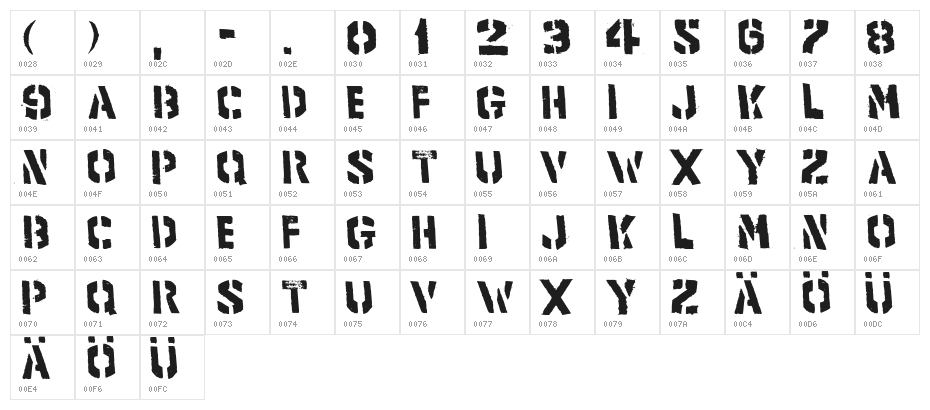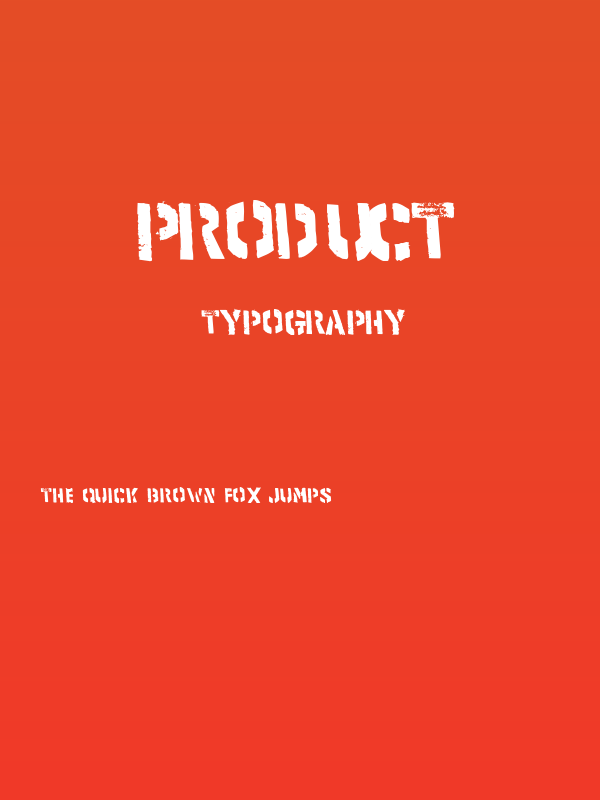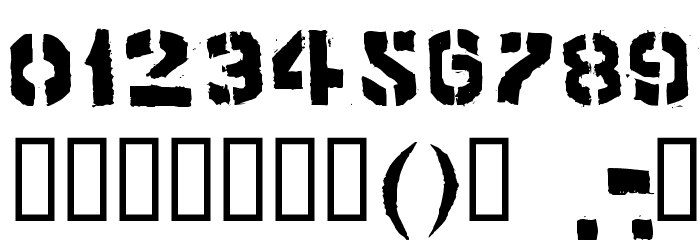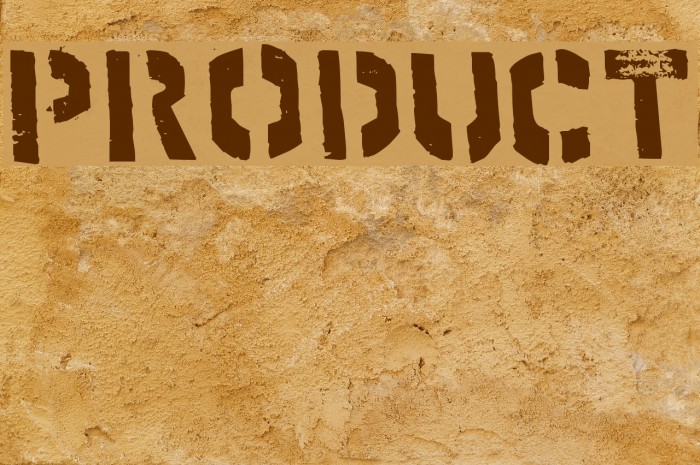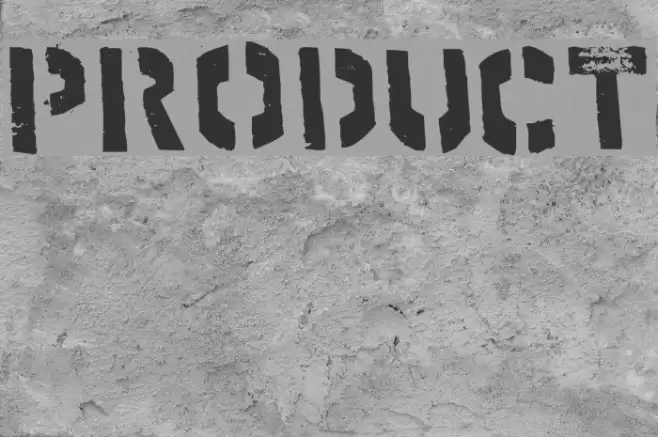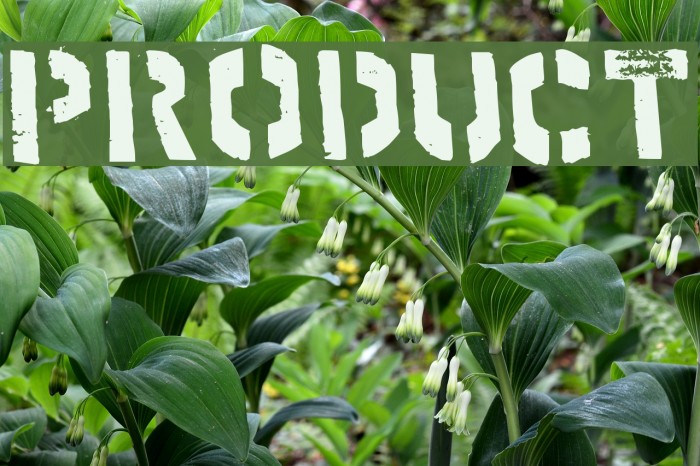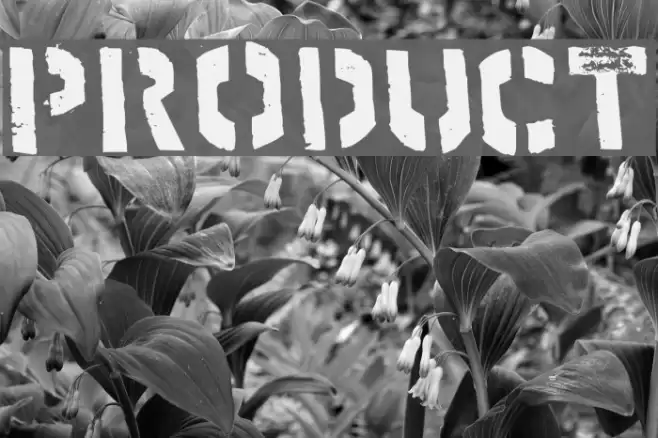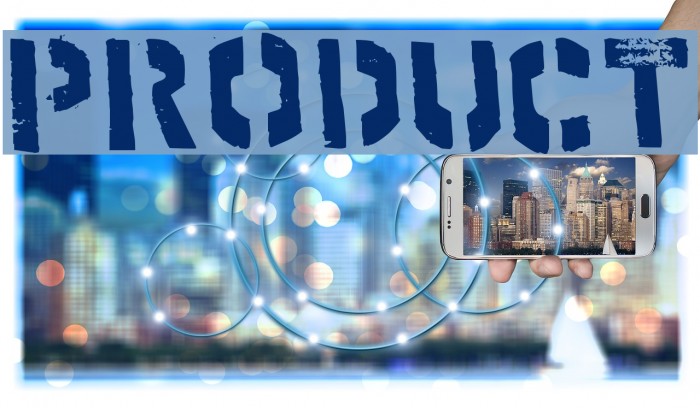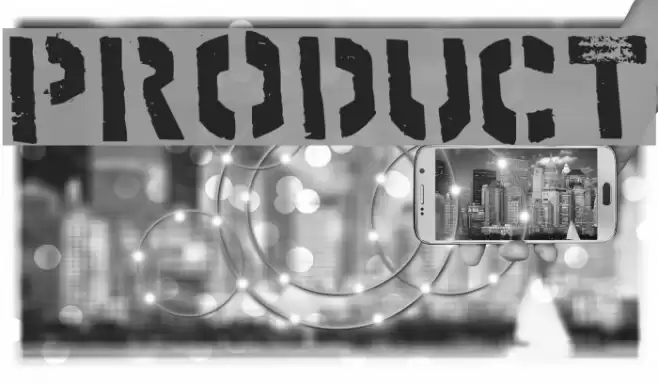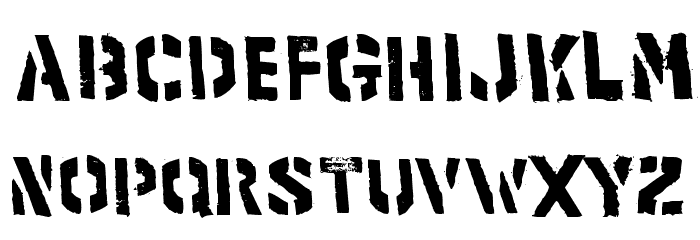
product Font
product Description
This font features a bold, distressed style with a stencil-like appearance, giving it a rugged and industrial feel. The characters are uppercase and lowercase, with numbers and a selection of special characters. The rough edges and irregularities in the letterforms suggest a worn or weathered look, reminiscent of graffiti or street art. The font's strong presence makes it suitable for impactful designs where a gritty, urban aesthetic is desired. Its unique texture and boldness ensure it stands out, making it ideal for attention-grabbing headlines or creative projects.
| Overall Style | Urban, Industrial, Grunge |
| Proposed Projects | Ideal for urban-themed posters, album covers, streetwear branding, or any project needing a gritty, bold aesthetic. |